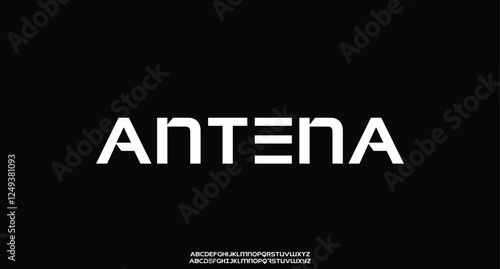
Futuristic font alphabet letters. Abstract technology space font and alphabet. Font for data science ,science, tech, space, medical, technology, digital interface projects. futuristic font Logo.